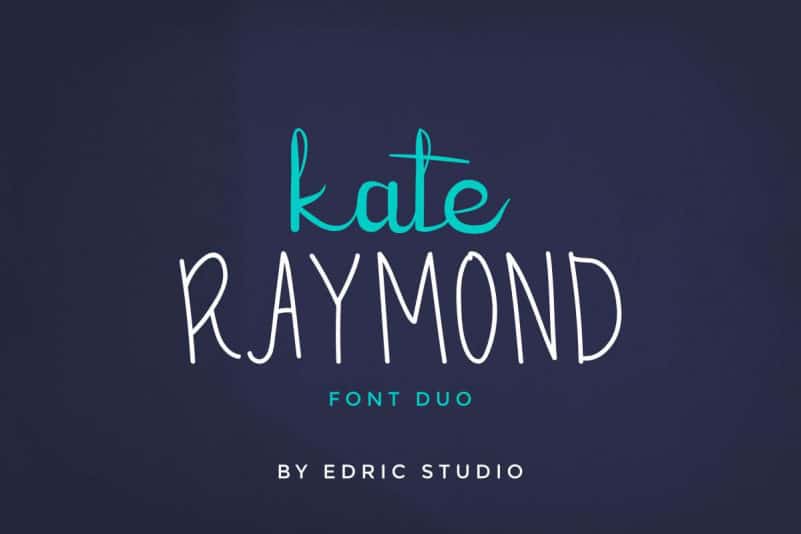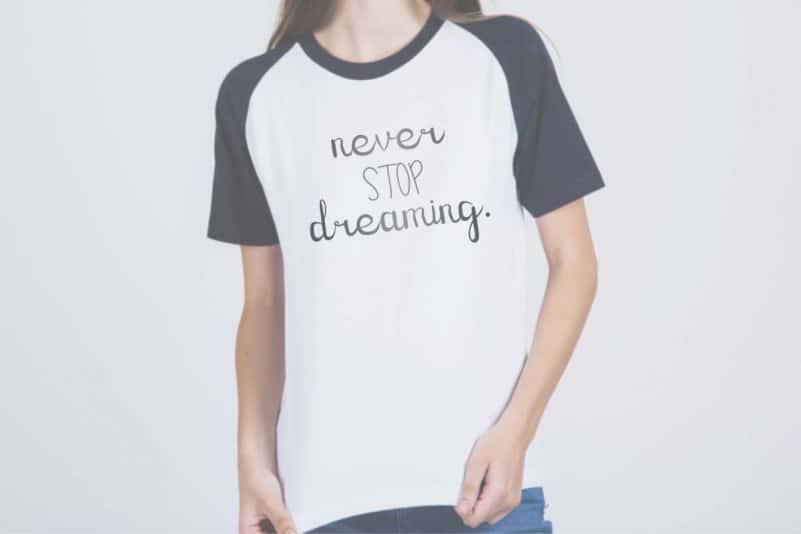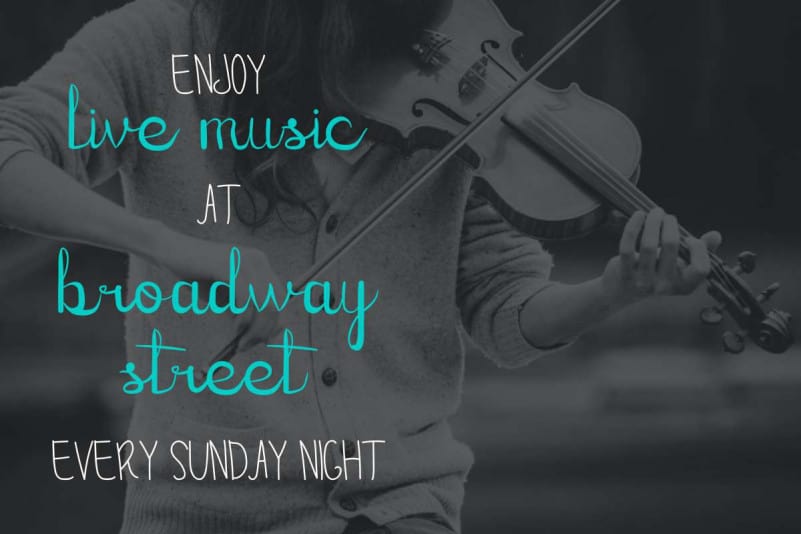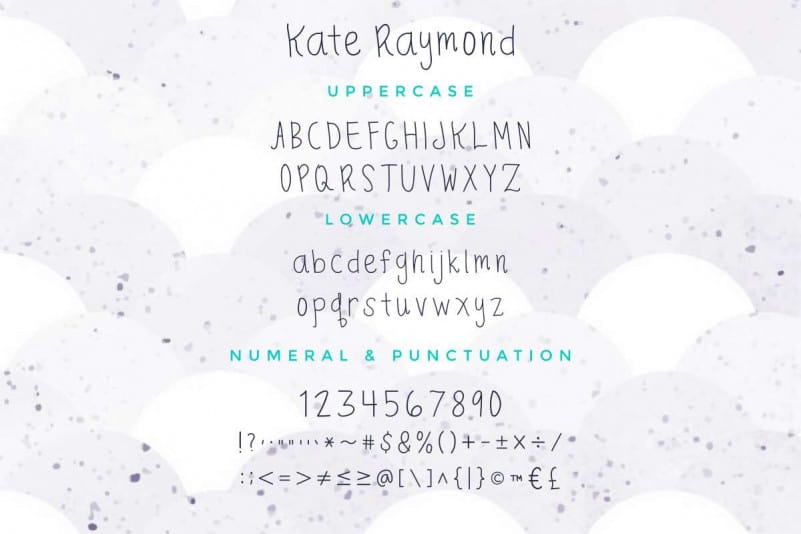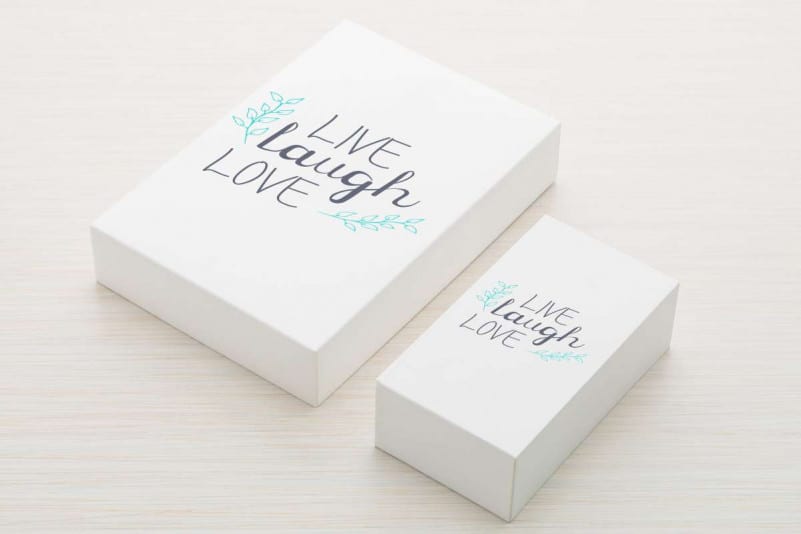
Kate Raymond Font Duo
Kate Raymond Font Duo is a unique font duo, made by three letter artists : Lukman, Ali and suci in Bandung and Garut, Indonesia.
Kate Raymond Font Duo has a stunning characters set, exclusively made for you!
This is a new script decorative font with handwriting style. The characters style of this typeface is the strong, vintage, classic, simple, natural and beautiful
Perfect for brandings, logo type, or any other graphic products: poster, flyer, signage, merchandise, leaflet etc. There are many industries that is suitable for this font : events, fashion, carnaval, florist, dentist, musician, movie, film etc.